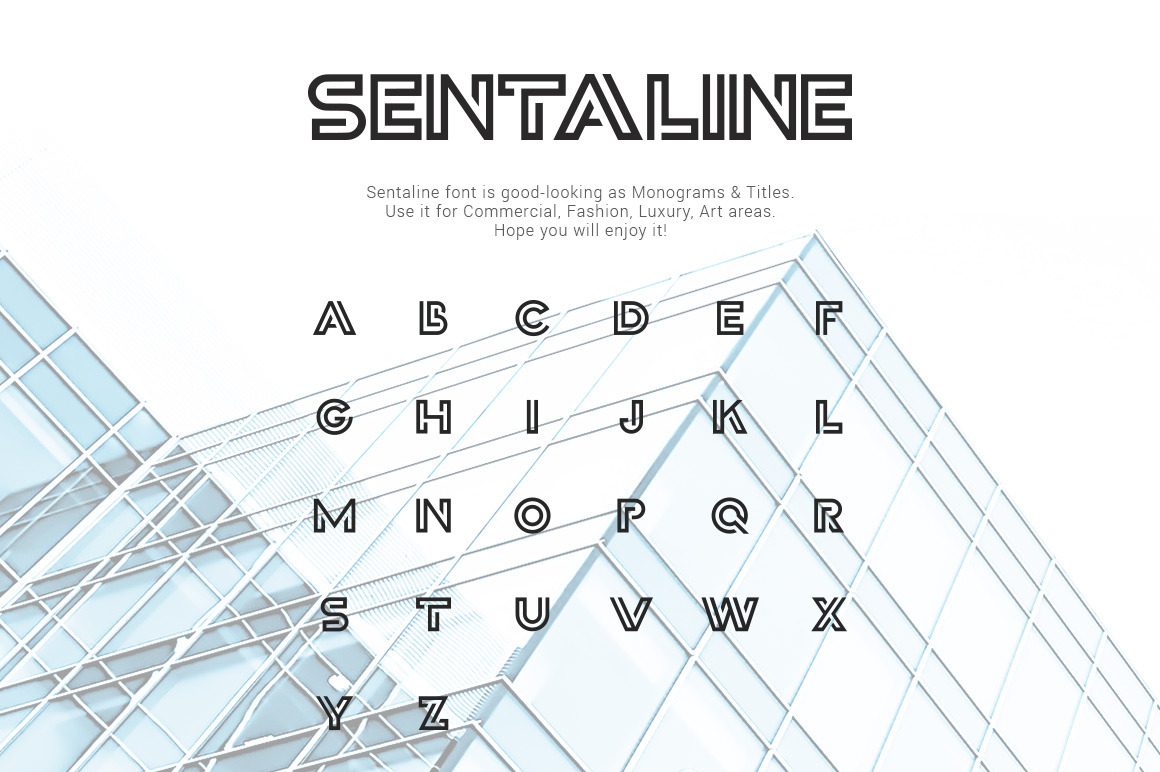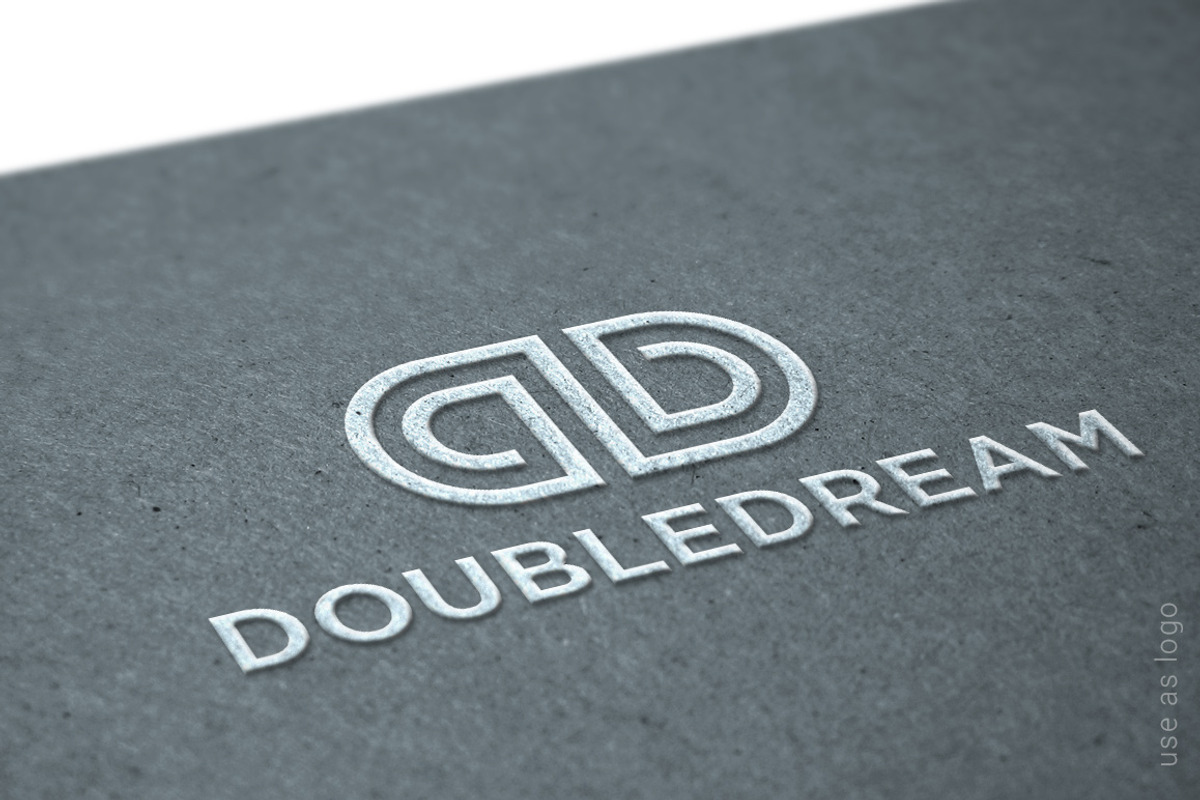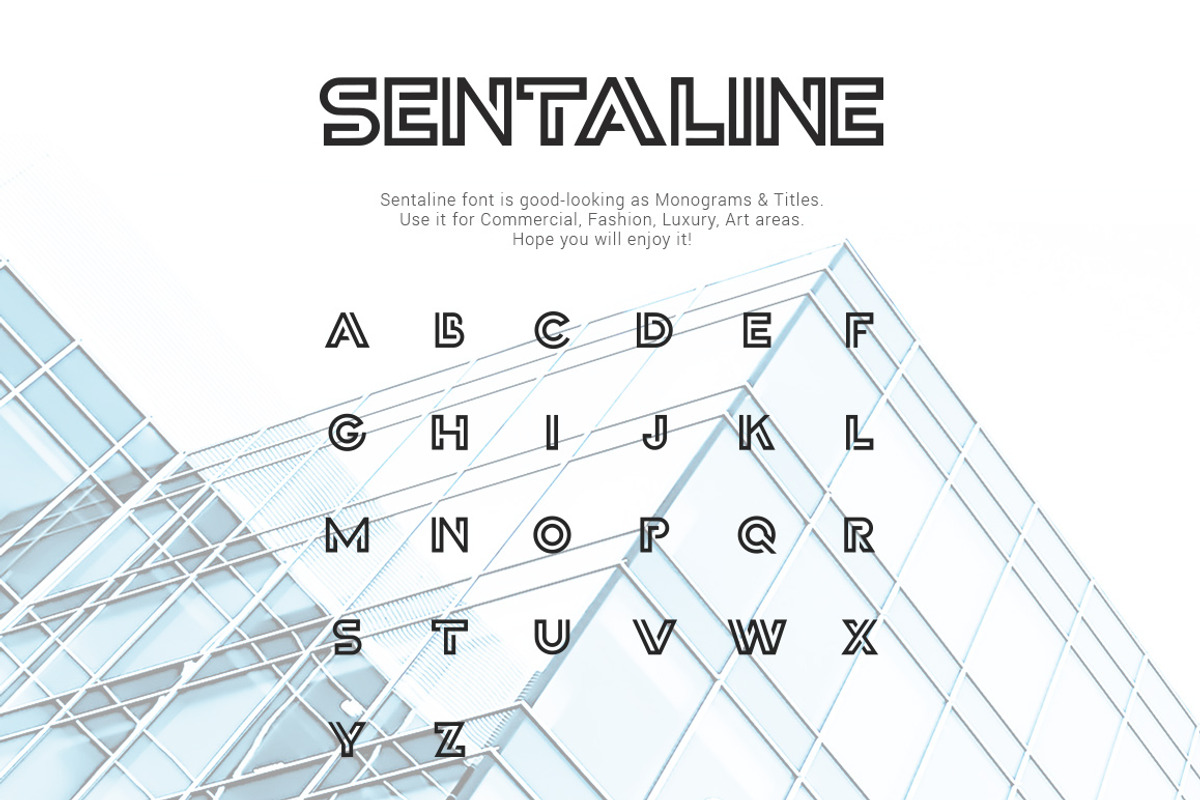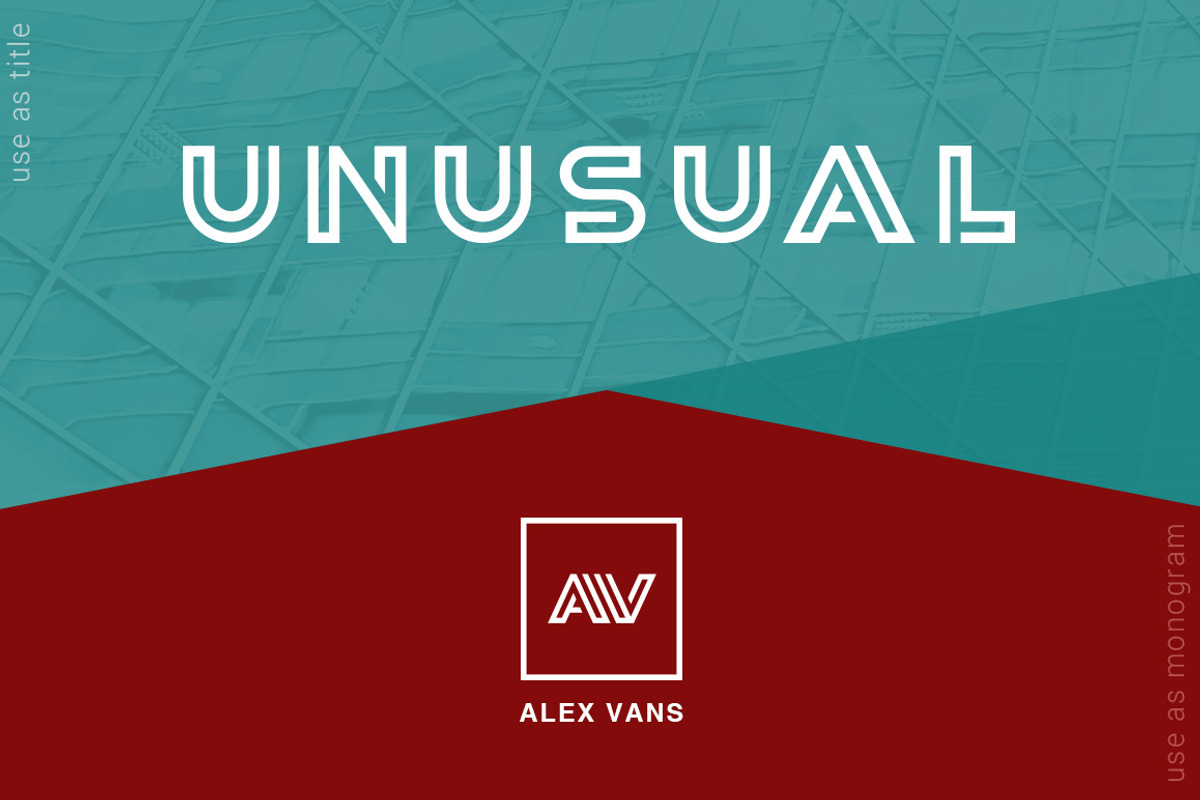
Sentaline logo and monogram font
Sentaline font is good looking as monograms, logos, titles and headlines.
Use it for Commercial, Fashion, Luxury, Art areas.